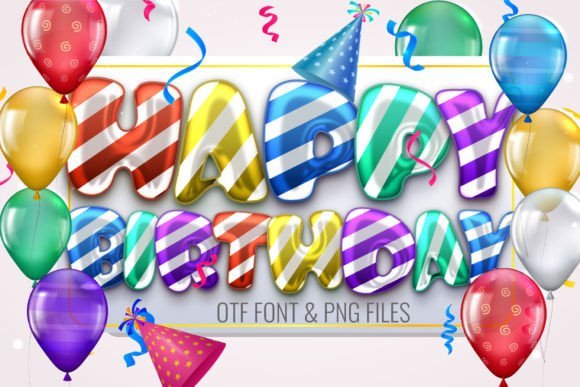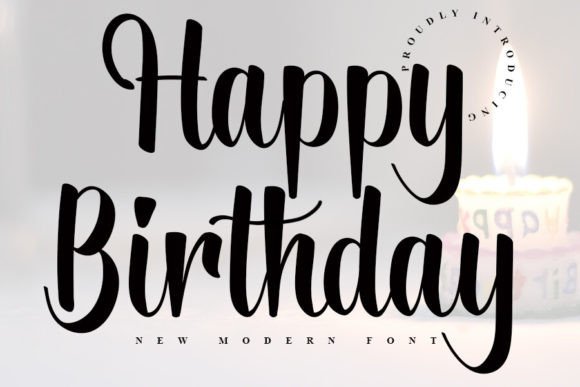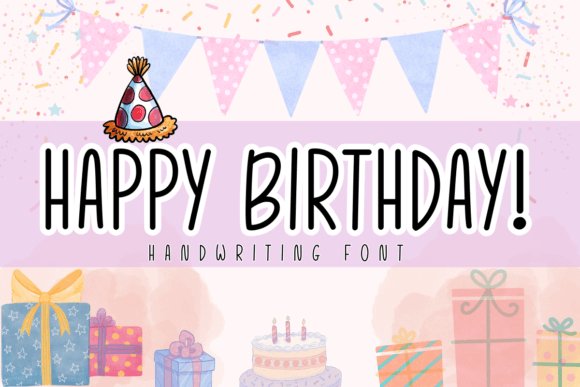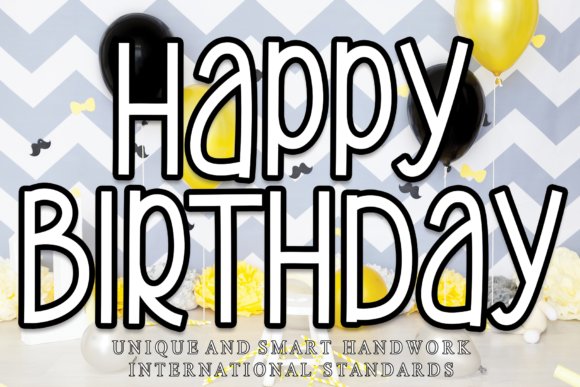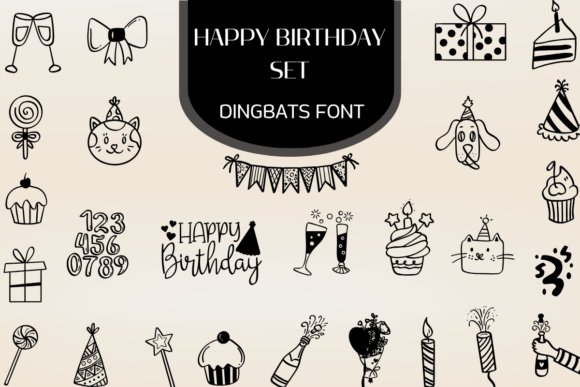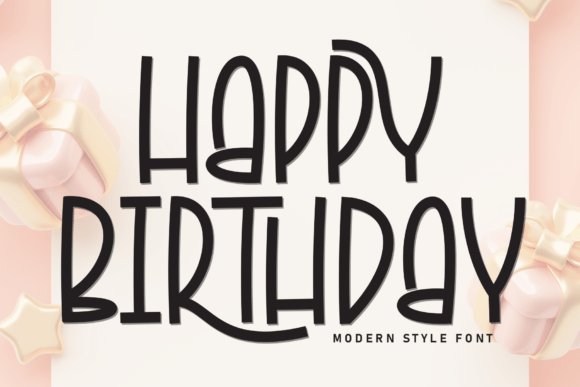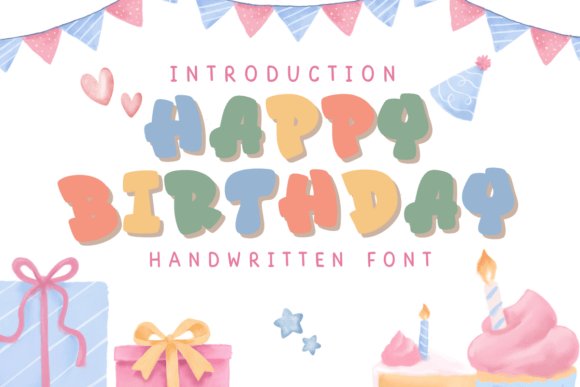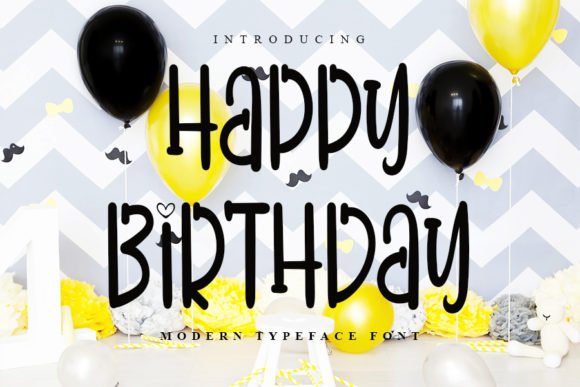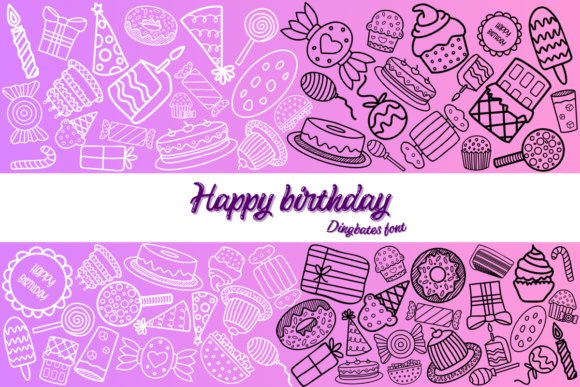
47 Best Happy Birthday Font Choices for 2026 Party Graphics
Picking a great Happy Birthday Font is one of the most important steps when designing invitations, banners, or digital graphics. In 2026, the trend is all about personality and warmth, which is why having a diverse library of typefaces is essential. To help you save time, we have gathered 47 high-quality options that will suit any theme, from vintage celebrations to modern minimalist parties.
1. Happy Birthday Font
Happy Birthday
Happy Birthday Font is a charming handwritten script that brings a sense of freshness and casual elegance to any design canvas. With its fluid strokes and organic lines, this typeface evokes a laid-back, artisanal vibe that is increasingly popular in modern branding. It serves as an ideal choice for designers looking for a Happy Birthday Font that feels personal and heartfelt rather than mass-produced, making it a standout selection for bespoke party invitations and seasonal event announcements.
Beyond its obvious utility for birthday-themed content, this font excels in social media graphics, lifestyle branding, and custom stationery. Its balanced weight ensures readability while maintaining a hand-lettered aesthetic that resonates with audiences seeking authenticity. Whether you are crafting a digital banner or a physical greeting card, the Happy Birthday Font adds a touch of warmth and distinct personality that elevates the overall visual narrative of your project.
2. Happy Birthday Font
Happy Birthday
For designers seeking a vibrant and playful aesthetic, the Happy Birthday Font in this colorful OpenType-SVG format is a game-changer. This high-quality typeface embodies joy through its modern, friendly letterforms and built-in color palettes, making it a top-tier Happy Birthday Font for festive decorations and children’s event branding. Because it includes high-resolution PNG alphabet files, it offers incredible flexibility for creating layered, multi-dimensional designs that pop off the screen or page.
Technical precision is a hallmark of this product, being fully compatible with professional design software like Adobe Photoshop, Illustrator, and Inkscape. While it is a specialized color font, it remains an excellent tool for digital creators producing jolly, high-energy content for social media or digital scrapbooking. When your project requires a Happy Birthday Font that captures the celebratory spirit of a party, this colorful script provides the perfect blend of technical sophistication and whimsical charm.
3. Happy Birthday Font
Happy Birthday
The Happy Birthday Font is a versatile handwritten script designed to mimic the intimate feel of personal penmanship. Its natural flow makes it an exceptional choice for taking digital notes, writing in a virtual diary, or crafting heartfelt greeting cards. If you are searching for a Happy Birthday Font that bridges the gap between digital precision and the warmth of a hand-penned letter, this typeface offers the perfect rhythmic balance for your creative compositions.
Its utility extends far beyond simple text, proving itself useful for a wide array of physical merchandise such as custom mugs, T-shirts, and elegant stationery. The organic nature of the strokes ensures that whether you are designing a large-scale banner or a small social media post, the text remains approachable and inviting. As a go-to Happy Birthday Font for DIY enthusiasts and professional designers alike, it provides the creative freedom needed to transform ordinary layouts into memorable, personalized keepsakes.
4. Happy Birthday Font
Happy Birthday
The Happy Birthday Font is a masterclass in sweet, handwritten charm. Its organic flow and friendly letterforms create a natural aesthetic that feels like a heartfelt note from a close friend. This versatile script is perfect for designers looking to inject a unique personality into their work, whether you are crafting a boutique greeting card or a custom party banner. The fluid strokes and balanced proportions ensure high legibility while maintaining a whimsical, handcrafted vibe that resonates with audiences of all ages.
When searching for a Happy Birthday Font that offers both warmth and professional polish, this selection stands out as a premier choice. Its ability to adapt to various design contexts—from digital scrapbooking to social media graphics—makes it an essential tool in your creative toolkit. The font’s unique character set allows for a high degree of customization, letting your imagination run wild as you design celebratory invitations, personalized gift tags, and festive home decor that captures the joy of any special occasion.
5. Happy Birthday Set Font
Happy Birthday Set
The Happy Birthday Set Font is a comprehensive dingbat collection that transforms your keyboard into a toolkit of festive illustrations. This charming set features an array of hand-drawn icons, ranging from whimsical tiered cakes and party hats to adorable animals decked out in their best celebration gear. It also includes stylized numbers and a pre-designed script icon, making it incredibly easy to create cohesive layouts without needing extra clip art. This dingbat font is a perfect companion for any Happy Birthday Font, providing the visual flair needed to bring a party theme to life.
Designed with versatility in mind, the Happy Birthday Set Font is ideal for DIY invitations, digital scrapbooking, and custom stickers for social media. Each icon is crafted with a playful, hand-drawn feel that adds a layer of joy and energy to your projects. Whether you are building a website for a birthday event or printing physical favors for a party, these icons provide a consistent and professional aesthetic that simplifies the design process while maximizing visual impact.
Download Happy Birthday Set Font
6. Happy Birthday Font
Happy Birthday
For those looking for a bold and energetic visual statement, this Happy Birthday Font offers a cheerful and festive display style that commands attention. Characterized by exaggerated curves and a joyful spirit, the font’s bouncy baseline and thick strokes radiate happiness. It is specifically engineered to serve as a focal point in celebration-themed projects, making it an excellent choice for children’s party invitations, vibrant greeting cards, and energetic event posters that need to pop off the page.
Integrating this Happy Birthday Font into your layouts instantly elevates the festive atmosphere of your designs. The exaggerated letterforms provide a sense of movement and fun, which is perfect for wall art, kids’ room decor, and celebratory banners. Its thick, legible characters are also well-suited for high-impact social media posts and digital headers, ensuring your message of celebration is heard loud and clear. This display font bridges the gap between playful whimsy and professional design, making it a go-to option for any joy-filled creative project.
Download Happy Birthday Font
7. Happy Birthday Font
Happy Birthday
This version of the Happy Birthday Font captures the essence of genuine handwriting, making it an ideal choice for personal projects and heartfelt messages. Whether you are drafting a digital diary entry or creating custom greeting cards for a loved one, its fluid strokes offer a sense of warmth and authenticity that standard typefaces lack. It bridges the gap between digital convenience and the charm of a handwritten note, allowing your designs to feel more intimate and personalized.
Beyond personal correspondence, this versatile script works beautifully for commercial applications such as festive banners, custom mugs, and branded stationery. Its approachable style is perfect for social media content where you want to engage your audience with a friendly, non-corporate aesthetic. Integrating this Happy Birthday Font into your design toolkit ensures you have a reliable, stylish option for any celebratory project that requires a human touch.
Download Happy Birthday Font
8. Happy Birthday Font
Happy Birthday
For those seeking a balance of playfulness and professional neatness, this Happy Birthday Font is a standout selection. Characterized by its quirky and friendly letterforms, it brings a cheerful personality to any layout without sacrificing readability. The simple yet elegant style makes it highly adaptable, functioning as a go-to option for everything from birthday party invitations to festive marketing collateral that needs to pop.
The clean lines of this script font allow it to scale beautifully across various mediums, from small printed gift tags to large-scale event posters. It excels in environments where a welcoming and joyous tone is required, making it one of the most reliable choices for a Happy Birthday Font in your typography library. Use it to add a touch of whimsy to your next creative project and watch your message resonate with clarity and charm.
Download Happy Birthday Font
9. Happy Birthday Font
Happy Birthday
Breaking away from traditional letterforms, this unique Happy Birthday Font is a specialized dingbat collection featuring a delightful sketch style. Instead of standard characters, it provides a variety of thematic icons and illustrative elements that are perfect for enhancing creative layouts. From wedding invitations to DIY craft projects, these hand-drawn graphics add a unique, artisanal touch that complements any festive typography or party-themed design.
These decorative elements are incredibly useful for designers looking to add visual interest to logos, party decorations, or personalized gifts without the need for custom illustrations. As a companion to your favorite text-based Happy Birthday Font, these dingbats help unify your design theme and provide the finishing touches that make a project look professionally curated. They are the perfect asset for adding a sketchy, hand-drawn flair to your creative toolbox.
Download Happy Birthday Font
10. Happy Birthday Font
Happy Birthday
This Happy Birthday Font offers an approachable and delightful aesthetic that instantly brightens up any design project. As a handwritten display typeface, it captures a playful and cheery demeanor that is ideal for creators looking to add a personal, human touch to their work. Whether you are crafting bespoke stationary or digital graphics, its organic strokes provide a sense of warmth and authenticity that is hard to replicate with standard digital fonts.
Beyond its obvious utility for birthday cards, this versatile typeface is a fantastic choice for wedding invitations, heartfelt letters, and branding materials that require a sprinkle of merriment. Its flowy script style makes it a quintessential happy birthday font for those who want their celebratory messages to feel both intentional and joyous. It pairs beautifully with minimalist layouts, allowing the character-filled letters to stand out as the centerpiece of your design.
Download Happy Birthday Font
11. Happy Birthday Font
Happy Birthday
Exuding elegance and handcrafted charm, this exquisite version of the Happy Birthday Font belongs to the high-end world of display script typography. Every curve and loop has been meticulously designed to capture the very essence of celebration and joy, making it an indispensable tool for designers working on festive projects. Its handwritten style infuses a warm, heartfelt sentiment into your layouts, ensuring that every message resonates deeply with the recipient.
This script is particularly effective for adding a personal touch to high-quality birthday greetings, event invitations, and seasonal decor. Because it mimics the flow of natural handwriting so closely, it works wonders for digital scrapbooking or social media graphics where a handmade feel is desired. If you are searching for a happy birthday font that balances sophistication with a festive spirit, this typeface is an excellent addition to your creative toolkit.
Download Happy Birthday Font
12. Happy Birthday Font
Happy Birthday
This Happy Birthday Font is a delicate and carefully crafted handwritten typeface designed for those seeking a cool, unique aesthetic. Its fine lines and artistic flow make it stand out from more traditional scripts, providing a modern edge to classic celebratory themes. It is specifically engineered to bring a sense of lightness and grace to your compositions, making it ideal for high-end editorial work or sophisticated branding projects.
The versatility of this font extends far beyond simple greetings; it is a superb choice for food packaging, product titles, and formal invitations that require a subtle yet distinct personality. By incorporating this happy birthday font into your workflow, you can create cohesive designs for events ranging from intimate dinner parties to large-scale celebrations. Its unique character ensures that your titles and headers remain legible while still maintaining an artistic, hand-drawn quality.
Download Happy Birthday Font
13. Happy Birthday Font
Happy Birthday
The Happy Birthday Font is a sophisticated handwritten typeface that seamlessly blends contemporary aesthetics with the timeless elegance of classic calligraphy. Its balanced strokes and varied character forms create a rhythmic flow that is perfect for enhancing the visual appeal of celebratory projects. Whether you are crafting bespoke invitations or elegant event signage, this font provides a refined touch that captures the joy of any special occasion.
Functionality is at the heart of this design, as it is fully PUA encoded to ensure designers can effortlessly access a wide array of stunning glyphs and ligatures. This makes the Happy Birthday Font an ideal choice for those looking to create personalized greetings, festive social media graphics, or intricate scrapbooking layouts. Its professional yet approachable form ensures your message is delivered with both style and clarity.
Download Happy Birthday Font
14. Happy Birthday Font
Happy Birthday
If you are searching for a versatile script, this Happy Birthday Font offers a stylish handwritten feel that feels both modern and deeply rooted in calligraphic tradition. The font’s impeccable form is designed to add a layer of handcrafted beauty to your digital and print designs, making it a staple for anyone building a celebratory toolkit. The contemporary atmosphere it projects is perfect for high-end stationery and sophisticated party branding.
With its PUA encoding, this Happy Birthday Font allows for a high degree of customization through easy-to-access ligatures and alternative characters. This level of detail makes it particularly effective for branding projects, merchandise, and custom typography for birthday celebrations. Its fluid lines and organic feel help your designs stand out, providing an authentic hand-lettered appearance that resonates with audiences.
Download Happy Birthday Font
15. Happy Birthday Font
Happy Birthday
This bold iteration of the Happy Birthday Font is specifically crafted to make a powerful visual impact. It moves away from delicate lines to embrace a more striking and confident script style, making it an excellent choice for headers, posters, and any design that requires a strong focal point. The unique personality of this typeface ensures that your celebratory messages are not just seen, but remembered.
Ideal for energetic and vibrant layouts, this Happy Birthday Font works exceptionally well for social media stories, cake topper designs, and festive merchandise. Its bold weighting provides great legibility even at a distance, allowing it to shine in both digital and physical applications. Get inspired by its distinct style and use it to inject a sense of excitement and modern flair into your next creative celebration.
Download Happy Birthday Font
16. Happy Birthday Font
Happy Birthday
The Happy Birthday Font is a masterclass in modern brush lettering, offering an energetic and expressive aesthetic that immediately catches the eye. With its confident, sweeping strokes and dynamic letterforms, this handwritten typeface captures the raw beauty of ink on paper. It is an exceptional choice for designers looking to infuse their celebratory projects with a sense of movement and artistic flair, making it one of the most versatile options for high-impact headlines and personalized greetings.
When it comes to practical application, this script font shines in festive contexts such as custom party invitations, vibrant social media graphics, and bold event branding. Its fluid rhythm and contemporary style allow it to stand out on digital screens and printed materials alike. Whether you are crafting a heartfelt birthday card or designing a large-scale banner, this font provides the perfect balance of hand-crafted elegance and modern sophistication to elevate any birthday-themed design.
Download Happy Birthday Font
17. Happy Birthday Font
Happy Birthday
This version of the Happy Birthday Font brings a refined, calligraphic touch to the world of script typography. Inspired by timeless classical handwriting but updated with a contemporary atmosphere, it offers a balanced and varied set of characters that flow together seamlessly. The impeccable form of each letter ensures that your text remains legible while maintaining an air of sophisticated grace, making it ideal for luxury stationery, elegant gift tags, and upscale event signage.
Technical versatility is a core feature of this typeface, as it comes fully PUA encoded. This allows users to easily access a rich library of extra glyphs and decorative ligatures without needing specialized design software. By utilizing these additional flourishes, you can customize your “Happy Birthday” messaging to create a truly bespoke look. It is a fantastic asset for creators who need a professional-grade script that combines the charm of traditional calligraphy with the ease of modern digital use.
Download Happy Birthday Font
18. Happy Birthday Doodle Font
Happy Birthday Doodle
The Happy Birthday Doodle Font is a delightful collection of illustrative dingbats designed to bring a whimsical and hand-drawn feel to your creative projects. Instead of standard letters, this font provides a variety of festive icons and celebratory symbols, such as tiny cakes, candles, and party decorations. These elements are perfect for embellishing digital diaries, note-taking apps, or personalized greeting cards, allowing you to add a layer of visual interest that complements any text-based Happy Birthday Font.
Beyond simple paper crafts, these doodles are highly effective for merchandise design and social media content. The playful nature of the icons makes them a natural fit for custom t-shirts, mugs, and stationery sets intended for all ages. Because the symbols are mapped to a font file, they are incredibly easy to scale and color-code, providing a convenient way for designers to build cohesive, festive layouts for banners, stickers, and promotional materials with minimal effort.
Download Happy Birthday Doodle Font
19. Happy Birthday Font
Happy Birthday
This delightful script is a standout selection for anyone looking for a versatile Happy Birthday font that radiates warmth and approachability. Featuring a playful, handwritten style, it captures a sense of joyous energy that is often missing from more rigid typefaces. Its bubbly terminals and rhythmic strokes make it a fantastic choice for crafting memorable greeting cards, festive banners, and personalized event stationery that requires a lighthearted, human touch.
Expert designers will appreciate the font’s inviting blend of softness and kinetic energy, which works wonders for social media graphics and digital invitations. Whether you are working on a high-energy party flyer or a sweet, intimate wedding card, this font injects a whimsical personality into every project. Its character set is designed to be both legible and charming, ensuring your celebratory messages stand out with a unique, hand-drawn aesthetic.
Download Happy Birthday Font
20. Happy Birthday Font
Happy Birthday
Embrace a sophisticated yet whimsical aesthetic with this elegant cursive script, a premier choice for a romantic Happy Birthday font. The typeface is defined by its gentle strokes and fluid character connections, creating a sense of effortless charm and high-end appeal. It is particularly effective for branding projects, merchandise design, and luxury event materials where a touch of sweetness needs to be balanced with professional elegance.
The visual flow of this font mimics natural handwriting, making it an excellent tool for designers aiming to create an intimate connection with their audience. It excels in layouts for quote art, lifestyle blogs, and celebratory signage, offering a visually stunning backdrop for any message of joy. By combining traditional script elements with a modern, airy feel, this font ensures that your creative projects are both captivating and timelessly stylish.
Download Happy Birthday Font
21. Happy Birthday Font
Happy Birthday
If your project demands a straightforward and friendly visual tone, this relaxed version of the Happy Birthday font is an ideal solution. Avoiding the over-the-top flourishes often found in script typography, this font focuses on a clean, legible handwritten style that feels both authentic and modern. Its simplicity allows it to function as a powerful visual anchor in various design contexts, from minimalist posters to casual social media stories.
This font is particularly well-suited for DIY projects, educational materials, and informal party invitations where a crafted look is desired. The strong visual effect of its unpretentious letterforms makes any creation instantly more appealing, bridging the gap between professional design and personal touch. Use it whenever you need a reliable, friendly typeface that communicates happiness and sincerity without distraction.
Download Happy Birthday Font
22. Happy Birthday Font
Happy Birthday
This Happy Birthday Font captures the essence of personalized celebration with its sweet, cursive handwritten strokes. The gentle flow of the characters makes it an ideal choice for high-end stationery, where a romantic and joyful touch is essential for setting the right mood. Whether you are designing custom birthday invitations or delicate social media graphics, its fluid ligatures provide a seamless, hand-drawn look that resonates with warmth and sincerity.
Beyond its primary use in festive greetings, this script typeface excels in sophisticated craft projects and professional digital design work. Its elegant aesthetic pairs beautifully with floral elements and soft pastel color palettes, making it a versatile tool for any designer looking to add a bit of human personality to their work. From personalized gift tags to elegant event headers, this font ensures your message feels heartfelt, unique, and professionally polished.
Download Happy Birthday Font
23. Happy Birthday Font
Happy Birthday
For those seeking a more contemporary and playful look, this version of the Happy Birthday Font offers a fun and versatile sans-serif structure. Its clean lines and approachable character shapes make it perfect for crafting projects, educational presentations, and digital designing where readability is paramount. Unlike traditional scripts, this sans-serif variant brings a modern clarity to greeting card making, ensuring that your celebratory messages stand out with a fresh, crisp aesthetic.
This font is particularly effective for DIY enthusiasts and professional graphic designers who need a sturdy yet cheerful typeface for high-impact headlines. It works exceptionally well in multi-layered designs, vinyl cutting for party decorations, or as a bold focal point on festive banners. Its balanced weight and uniform spacing ensure that your birthday wishes remain legible and vibrant across both physical print materials and high-resolution digital platforms.
Download Happy Birthday Font
24. Happy Birthday Font
Happy Birthday
This Happy Birthday Font is a sweet and friendly handwritten display typeface designed to inject a sense of whimsy into every design project. Featuring cute and fun letterforms that look as though they were crafted by hand, it is perfectly suited for wedding invitations, anniversary cards, or any celebratory layout that requires a touch of lighthearted charm. The organic feel of the characters creates a welcoming and festive atmosphere, inviting the reader to share in the joy of the special occasion.
Graphic artists will appreciate how this font bridges the gap between casual handwriting and professional display typography. It is an excellent choice for branding children’s party supplies, scrapbooking layouts, or personalized digital stickers for social media. By incorporating this display font into your creative toolkit, you can easily transform standard text into a festive masterpiece that captures the genuine spirit of a celebratory event.
Download Happy Birthday Font
25. Happy Birthday Font
Happy Birthday
The Happy Birthday Font is a sophisticated and stylish handwritten typeface that brings a contemporary atmosphere to any design project. Inspired by timeless classic calligraphy, this font features an impeccable form that balances traditional elegance with modern readability. Each stroke is carefully crafted to provide a natural, rhythmic flow, making it an excellent choice for designers who want to elevate their typography with a personal, hand-drawn touch. It is particularly well-suited for high-end greeting cards, luxury event branding, and personalized stationery where a refined aesthetic is paramount.
Functionality meets beauty in this versatile script, as it is fully PUA encoded. This means you can effortlessly access a wide array of stunning glyphs and intricate ligatures without the need for specialized design software. Whether you are creating social media graphics, wedding invitations, or celebratory banners, this happy birthday font offers the flexibility and varied character sets needed to make your text truly stand out. Its varied baseline and polished curves ensure that every word looks like a bespoke piece of art.
Download Happy Birthday Font
26. Happy Birthday Font
Happy Birthday
If you are looking for a vibrant and cheerful aesthetic, this Happy Birthday Font is a cute, modern, and incredibly friendly color font that embodies pure playfulness. Designed to bring a jolly touch to any project, its rounded shapes and bright presence make it the perfect selection for children’s party materials, festive digital stickers, and playful marketing campaigns. As a color font, it adds an instant layer of depth and excitement to your work, saving you time on manual coloring while ensuring a professional, eye-catching result.
Understanding the needs of modern crafters, this typeface is offered in two distinct versions. The black version is fully optimized for use with Cricut Design Space and other popular cutting machines, making it a favorite for DIY vinyl projects and card making. Meanwhile, the specialized color version is compatible with industry-standard programs like Adobe Photoshop and Illustrator, allowing professional designers to leverage OpenType-SVG technology. This happy birthday font is an essential addition to any creative toolkit, bridging the gap between digital design and physical crafting.
Download Happy Birthday Font
27. Happy Birthday Duo Font
Happy Birthday Duo
Celebrate your most important milestones with the Happy Birthday Duo Font, a modern handwritten set that perfectly marries bold, chunky display letters with a cheerful, flowing script. This dynamic combination is designed for maximum visual impact, allowing you to layer the tall, outlined sans-serif font with the smooth, interconnected script layer for a custom, three-dimensional look. The contrast between the solid foundation of the sans-serif and the bouncy energy of the script creates a harmonious balance that immediately conveys joy and excitement.
This typeface duo is an absolute essential for event planners and social media managers looking for a versatile happy birthday font solution. It is ideal for everything from colorful event flyers and kids’ announcements to romantic greeting cards and catchy title designs. Thanks to the PUA coding, users have easy access to the full gamut of glyphs and ligatures, ensuring seamless integration into any design canvas. Whether you are aiming for a high-energy party vibe or a soft, sentimental feel, this font duo provides the artistic flexibility to bring your creative vision to life with ease.
Download Happy Birthday Duo Font
28. Happy Birthday Font
Happy Birthday
The Happy Birthday Font stands out as a bold and energetic display typeface designed to capture the essence of a lively celebration. Its hand-drawn charm and slightly irregular strokes provide a playful, organic feel that moves away from rigid digital aesthetics. This font is particularly effective for large-scale applications where you need your message to pop, making it a top choice for birthday banners, event flyers, and vibrant party stickers that require an instant sense of fun and festive personality.
Beyond its festive energy, this typeface is remarkably versatile for various child-centric designs and invitations. The strong, quirky letterforms ensure high legibility while maintaining a whimsical personality that appeals to both kids and adults. Whether you are crafting a digital invitation for a milestone event or printing physical party decor, this Happy Birthday Font brings a curated, handcrafted look to every creative project, ensuring your celebratory greetings are as memorable as the occasion itself.
Download Happy Birthday Font
29. Happy Birthday Font
Happy Birthday
Sometimes the best Happy Birthday Font isn’t made of letters at all, but rather the delightful symbols that define a party. This dingbat version of Happy Birthday is a treasure trove of festive icons, featuring everything from whimsical balloons and tiered cakes to beautifully wrapped presents and party favors. It acts as the perfect companion to your typography, allowing you to add professional-grade illustrative flourishes to your greeting cards and custom party invitations without needing to source external clip art or vector illustrations.
Using these symbols is an effortless way to create cohesive party branding and DIY decorations. Because these icons are mapped to your keyboard like a standard font, they scale perfectly without losing quality, making them ideal for high-resolution print projects or small, intricate stickers. If you want to elevate your designs with a cohesive, celebratory aesthetic, this dingbat-style Happy Birthday Font provides all the visual cues necessary to set a joyful tone for any age or milestone celebration.
Download Happy Birthday Font
30. Happy Birthday Font
Happy Birthday
For those seeking a more personal and intimate touch, this script version of the Happy Birthday Font offers a cute, casual handwritten aesthetic that feels incredibly approachable and warm. The fluid, organic lines mimic the look of natural calligraphy, making it an excellent selection for DIY craft projects, personalized gift tags, and heartfelt digital messages. Its friendly demeanor is especially well-suited for modern social media layouts, where a human touch can make your Instagram stories or Pinterest graphics stand out in a crowded feed.
This script typeface excels at transforming standard text into a unique piece of art. Its balanced weight and smooth connections between letters provide a sophisticated yet relaxed feel that works beautifully for elegant stationery or modern greeting cards. By incorporating this Happy Birthday Font into your creative toolkit, you gain a versatile asset that bridges the gap between formal calligraphy and everyday handwriting, perfect for any project that requires an authentic, celebratory atmosphere and a touch of artistic flair.
Download Happy Birthday Font
31. Happy Birthday Font
Happy Birthday
The Happy Birthday Font is a masterclass in modern handwritten elegance, designed to bring a sense of refined celebration to any layout. Its standout feature is undoubtedly the exaggerated, sweeping ascenders and descenders that create a dramatic vertical rhythm, making every word feel like a hand-inked masterpiece. The consistent stroke weight ensures clarity even at smaller sizes, while the flowing ligatures provide a seamless, organic feel that captures the joy of a special occasion with effortless grace.
Ideal for high-end event invitations and luxury gift packaging, this script font transforms standard text into a visual declaration of style. Designers will find it particularly effective for elegant social media announcements or branding projects that require a personal, sophisticated touch. Whether you are crafting a digital greeting or a physical card, this Happy Birthday Font adds a layer of grace and vertical presence that makes celebratory typography truly unforgettable.
Download Happy Birthday Font
32. Happy Birthday Font
Happy Birthday
Infuse your designs with a sense of wonder using this whimsical Happy Birthday Font, which features a charming candle-themed aesthetic. Its playful curves and creative silhouettes make it an instant favorite for children’s party invitations and festive stationery. The unique character shapes are designed to evoke the warmth and excitement of a birthday celebration, turning every individual letter into a decorative element that stands out on its own with a lovely, unique touch.
Beyond just party flyers, this decorative typeface is perfect for custom T-shirt designs, cake toppers, and vibrant classroom materials. Its lighthearted and approachable nature ensures that your message remains fun and engaging, making it an excellent choice for any project that needs a touch of magic. If you are looking for a Happy Birthday Font that prioritizes character and joy, this candle-inspired set is a top-tier creative asset for your design toolkit.
Download Happy Birthday Font
33. Happy Birthday Font
Happy Birthday
This magical iteration of the Happy Birthday Font offers a stunning blend of calligraphic artistry and display-ready impact. Carefully crafted to balance sophistication with accessibility, it features elegant flourishes that give every word a “true piece of art” feel. The lettering is rhythmic and meticulously balanced, making it a versatile choice for everything from digital headers to high-quality print production where visual hierarchy and beauty are paramount for celebratory branding.
For DIY enthusiasts and social media influencers, this font serves as the perfect tool for creating eye-catching Instagram stories or personalized craft projects. Its calligraphy-inspired roots make it ideal for boutique wedding stationery, personalized wall art, or even custom event signage. By choosing this specific Happy Birthday Font, you ensure that your creative projects carry a sense of timeless charm and professional polish that captures the eye immediately.
Download Happy Birthday Font
34. Happy Birthday Font
Happy Birthday
The Happy Birthday Font in its dingbat form is a delightful collection of festive illustrations designed to breathe life into your celebratory layouts. Featuring a charming sketch-themed style, this typeface deviates from traditional characters to offer hand-drawn icons that represent the joy of a party. It is an essential companion for designers working on DIY crafts, custom decorations, and unique scrapbooking projects where a visual spark is needed alongside text.
Beyond just simple icons, this font integrates seamlessly into complex creative workflows such as wedding invitation design and personalized logo creation. By utilizing these sketched elements, you can create a cohesive visual theme that pairs perfectly with a scripted Happy Birthday Font to elevate the overall aesthetic of your party invitations. Whether you are printing custom stickers or designing digital greeting cards, these festive dingbats provide that hand-crafted, artisanal feel that mass-produced graphics often lack.
Download Happy Birthday Font
35. Happy Birthday Font
Happy Birthday
This iteration of the Happy Birthday Font captures the essence of modern calligraphy with a clean, spotless form that feels both contemporary and timeless. It strikes a perfect balance in weight—neither too delicate nor overbearingly bold—ensuring that your celebratory messages remain legible across various mediums. The rhythmic flow of the handwritten strokes adds a personal touch to your projects, making it a standout choice for anyone seeking a sophisticated Happy Birthday Font for high-end greeting cards and social media graphics.
Expertly designed to enhance the beauty of your digital and print designs, this script font is incredibly versatile for professional branding and event planning. Its varied letterforms provide a natural, organic movement that mimics real pen-on-paper handwriting, which is ideal for creating heartfelt messages on banners, posters, and personalized gifts. When you need a Happy Birthday Font that exudes elegance without sacrificing readability, this modern calligraphic script is an excellent candidate for your design toolkit.
Download Happy Birthday Font
36. Happy Birthday Font
Happy Birthday
For designers seeking a touch of grace and refinement, this specific Happy Birthday Font offers an elegant and delicate handwritten aesthetic. Its light-as-air strokes and flowing ligatures make it a premier choice for luxury branding, wedding stationery, and sophisticated product packaging. Because it is PUA encoded, users can effortlessly access a wide array of special glyphs and alternates, allowing for deep customization and a truly bespoke look in every design project.
This font shines in professional environments where detail is paramount, such as in high-quality advertisements, business cards, and polished social media presence. By using this Happy Birthday Font, you can transform standard party announcements into artistic statements. The ability to toggle between standard characters and unique alternates makes it a powerful tool for creating logos that feel custom-made. Whether you are crafting a digital invitation or a physical keepsake, this typeface ensures your typography is as memorable as the occasion itself.
Download Happy Birthday Font
37. Happy Birthday Font
Happy Birthday
The Happy Birthday Font is a quintessential script typeface that radiates warmth and approachable elegance. Its fluid, handwritten strokes create a sense of personal connection, making it an excellent choice for projects that require a human touch. Whether you are crafting bespoke wedding invitations or heartfelt greeting cards, this font balances professional design with a sweet, friendly demeanor that instantly resonates with the viewer.
Beyond traditional stationery, this script is highly versatile for digital applications like social media graphics and personalized gift tags. The natural flow of the characters ensures that your messaging feels authentic rather than mass-produced. When looking for a reliable Happy Birthday Font to elevate your celebratory designs, this script offers the perfect blend of playfulness and sophistication for any festive occasion.
Download Happy Birthday Font
38. Happy Birthday Font
Happy Birthday
This vibrant iteration of the Happy Birthday Font brings a modern, colorful twist to traditional celebration typography. As a dedicated color font, it removes the guesswork from color theory by providing a pre-designed, jolly palette that embodies pure playfulness. It is an ideal asset for designers who want to inject instant energy into their work without manually layering multiple elements, making it a “plug-and-play” solution for festive layouts.
Perfectly suited for children’s party themes, school events, and digital marketing, this Happy Birthday Font stands out with its bold and friendly letterforms. It captures the essence of a joyous party atmosphere, making it a go-to choice for posters, banners, and interactive e-cards. Its authentic, modern style ensures your congratulatory messages are both visually striking and undeniably fun.
Download Happy Birthday Font
39. Happy Birthday Font
Happy Birthday
The Happy Birthday Font in its decorative form is a striking choice for those who want their typography to be the center of attention. Characterized by its unique and imaginative design, this font is specifically engineered for display purposes where every letter makes a statement. It is particularly effective for projects involving children and teenagers, where a standard typeface might feel too formal or understated.
Utilize this decorative Happy Birthday Font for everything from wedding anniversary banners to high-impact invitation headers. Its versatility extends to various celebratory contexts, including milestone achievements and community festivals. By choosing this font, you ensure your congratulations and event details are framed in a style that is as memorable as the celebration itself, providing a professional finish to any festive graphic design project.
Download Happy Birthday Font
40. Happy Birthday Font
Happy Birthday
The Happy Birthday Font is a masterclass in contemporary elegance, blending the organic feel of hand-painted calligraphy with a sophisticated digital finish. Its fluid brush strokes and dynamic curves create a sense of movement that is perfect for high-end event branding or personalized stationery. Whether you are designing a luxury greeting card or a boutique logo, this script provides an artistic flair that captures attention instantly while maintaining a high level of professional polish.
Beyond its visual appeal, the versatility of this typeface makes it a staple for any designer’s toolkit. It excels in social media graphics and product packaging where a touch of human connection is needed to resonate with an audience. By utilizing this Happy Birthday Font, you can elevate simple text into a creative statement, ensuring your celebratory designs feel both modern and timelessly expressive through its natural flow and vibrant character.
Download Happy Birthday Font
41. Happy Birthday Font
Happy Birthday
The Happy Birthday Font dingbat collection is the ultimate companion for any festive design project, offering a whimsical array of icons that celebrate life’s biggest milestones. Instead of traditional alphabetic characters, this font provides a library of festive symbols—ranging from celebratory cakes to decorative party elements—that can be used to accent DIY crafts or physical party invitations. It is an essential asset for creators looking to add a playful, decorative touch to their work without the need for complex custom illustrations.
Integrating these dingbats into your creative workflow allows for seamless thematic consistency across various mediums, such as wedding favors, custom vinyl stickers, or digital scrapbooks. This Happy Birthday Font variant is particularly effective for those who want to enhance their typography with visual storytelling, making every decoration or logo feel uniquely tailored to the joy of the occasion with minimal effort and maximum impact.
Download Happy Birthday Font
42. Happy Birthday Font
Happy Birthday
This version of the Happy Birthday Font stands out as a clean, all-round display typeface specifically designed to bring a jolly spirit to any layout. Its simple, well-balanced letterforms are crafted for maximum legibility, making it an excellent choice for bold headers, physical posters, and large-scale banners. The approachable weight and friendly appearance ensure that your celebratory message remains clear and professional, regardless of the medium it is printed on.
Because of its flexible and straightforward nature, this Happy Birthday Font is incredibly easy to pair with more decorative scripts or complex graphic illustrations. It is particularly well-suited for social media templates and children’s party invitations where clarity is just as important as visual character. Exploring its variations allows you to create bright, cheerful designs that resonate with audiences of all ages, brightening up every project with its infectious energy.
Download Happy Birthday Font
43. Happy Birthday Font
Happy Birthday
Our Happy Birthday Font is a masterfully crafted handwritten display typeface designed to ignite your creative spark and elevate your graphic projects. This font effortlessly blends whimsical curves with a sophisticated personal touch, making it an ideal candidate for any project that requires a distinctive, artisanal charm. Whether you are designing elegant wedding invitations or heartfelt special mementos, its spirited letterforms encapsulate the warmth of a hand-penned note, ensuring your message feels welcoming and sincere to every recipient.
Beyond its aesthetic appeal, this script font excels in its ability to weave a narrative of joy and positivity throughout your work. It is a versatile tool for professional designers and hobbyists alike who are looking to infuse their layouts with a sprightly splash of personality. From digital greeting cards to physical keepsakes, the Happy Birthday Font transforms standard text into a captivating visual story, bringing a joyful energy that truly brings your creative design concepts to life.
Download Happy Birthday Font
44. Happy Birthday Font
Happy Birthday
When you need more than just letters, the Happy Birthday Font dingbat collection offers a delightful array of cute illustrations to enhance your creative output. This unique dingbats font serves as a perfect companion to traditional typography, allowing you to sprinkle charming icons across your designs with the simple press of a key. It is particularly effective for those looking to add a playful, illustrative layer to their projects, making it a favorite for DIY crafts, festive digital layouts, and custom party favors.
Integrating this Happy Birthday Font into your design workflow is a simple way to elevate your creative ideas and achieve professional-looking results instantly. It is highly recommended for scrapbooking enthusiasts, sticker makers, and social media content creators who want to inject a bit of celebratory magic into their visuals. Each character provides a unique decorative element that ensures your work stands out with a cheerful and cohesive theme that captures the essence of a celebration.
Download Happy Birthday Font
45. Happy Birthday Font
Happy Birthday
Inject a dose of pure celebration into your next graphic project with this fun and festive Happy Birthday Font. Unlike standard alphabets, this dingbat font replaces traditional characters with high-quality birthday-themed icons, including multi-tiered cakes, floating balloons, flickering candles, and beautifully wrapped gifts. It is the ultimate toolkit for anyone designing party invitations, custom greeting cards, or event decorations, providing all the necessary visual elements in one convenient and easy-to-use typeface.
This playful font is designed for simplicity and maximum impact, allowing you to create complex-looking party graphics in seconds without needing external clip art. By using the Happy Birthday Font, you can ensure that every element of your design—from the headers to the borders—exudes a sense of excitement and celebration. It is an essential resource for event planners and graphic designers who want to maintain a consistent, festive aesthetic across all their printed and digital materials.
Download Happy Birthday Font
46. Happy Birthday Font
Happy Birthday
The Happy Birthday Font is an exceptionally charming handwriting script designed to bring a personal, handcrafted feel to your creative projects. Its fluid strokes and natural rhythm make it an ideal choice for digital note-taking or journaling, providing a warm aesthetic that mimics real penmanship. This versatility ensures it stands out as a top-tier Happy Birthday Font choice for anyone looking to add a human touch to their celebratory designs, whether you are crafting intimate messages or professional greeting cards.
Beyond personal use, this typeface excels in broader commercial applications ranging from vibrant social media content to bespoke physical merchandise like mugs, apparel, and custom stationery. Its legibility and casual elegance allow it to function perfectly as a Happy Birthday Font for large-scale banners or promotional materials. If your goal is to create a welcoming and friendly atmosphere in your designs, this script provides the perfect balance of style and readability.
Download Happy Birthday Font
47. Happy Birthday Font
Happy Birthday
Capturing the joyful essence of celebration, this version of the Happy Birthday Font offers a festive and spirited aesthetic that is perfect for any holiday or special event. The typeface features unique stylistic flourishes that evoke a sense of charm and nostalgic warmth, making it much more than a simple script. As a dedicated Happy Birthday Font, it is specifically tailored to enhance holiday-themed projects, ensuring that every word carries a sense of excitement and cheer.
This font is particularly effective for high-impact visual communication such as gift labels, festive signage, and elaborate party invitations. By integrating this Happy Birthday Font into your toolkit, you can effortlessly transform standard text into a decorative element that resonates with themes of happiness and togetherness. Its distinctive character makes it a standout choice for designers who want to imbue their work with a timeless, celebratory feel that appeals to all ages.